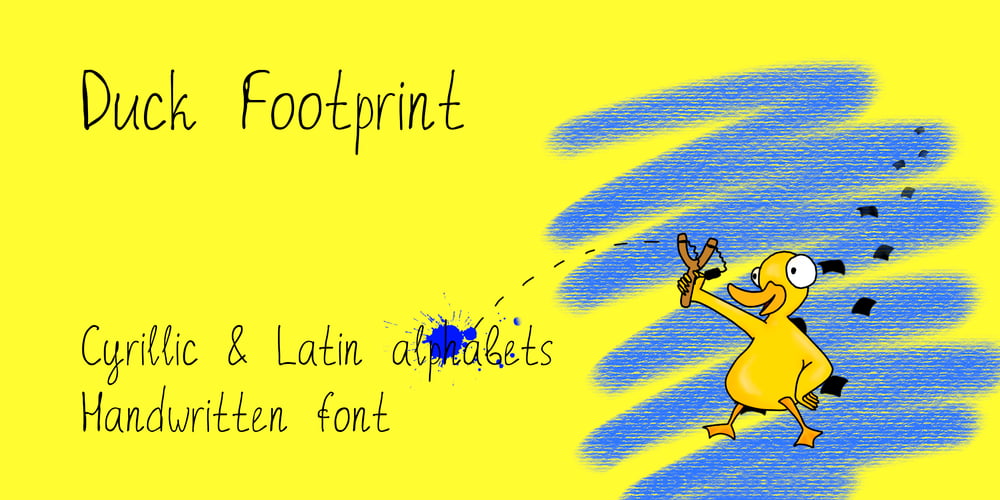
Duck Footprint Font Family was designed by Alena Tsemkalo and published by AaAAaAlena. Duck Footprint contains 5 styles and family package options. This font looks like a natural gel pen handwriting. It supports both uppercase and lowercase Cyrillic and Latin alphabets, numeral, punctuation, symbols, currencies.The story of creating is short: I made a font that would support the concept of the website. And then it seemed to me that this font could have more uses, so I decided to share it. You can use it for any creative project, I’m not going to list examples not to limit you. I am sure that with this font you will convey the vibe you want. Just use imagination, and your masterpiece will look perfect)